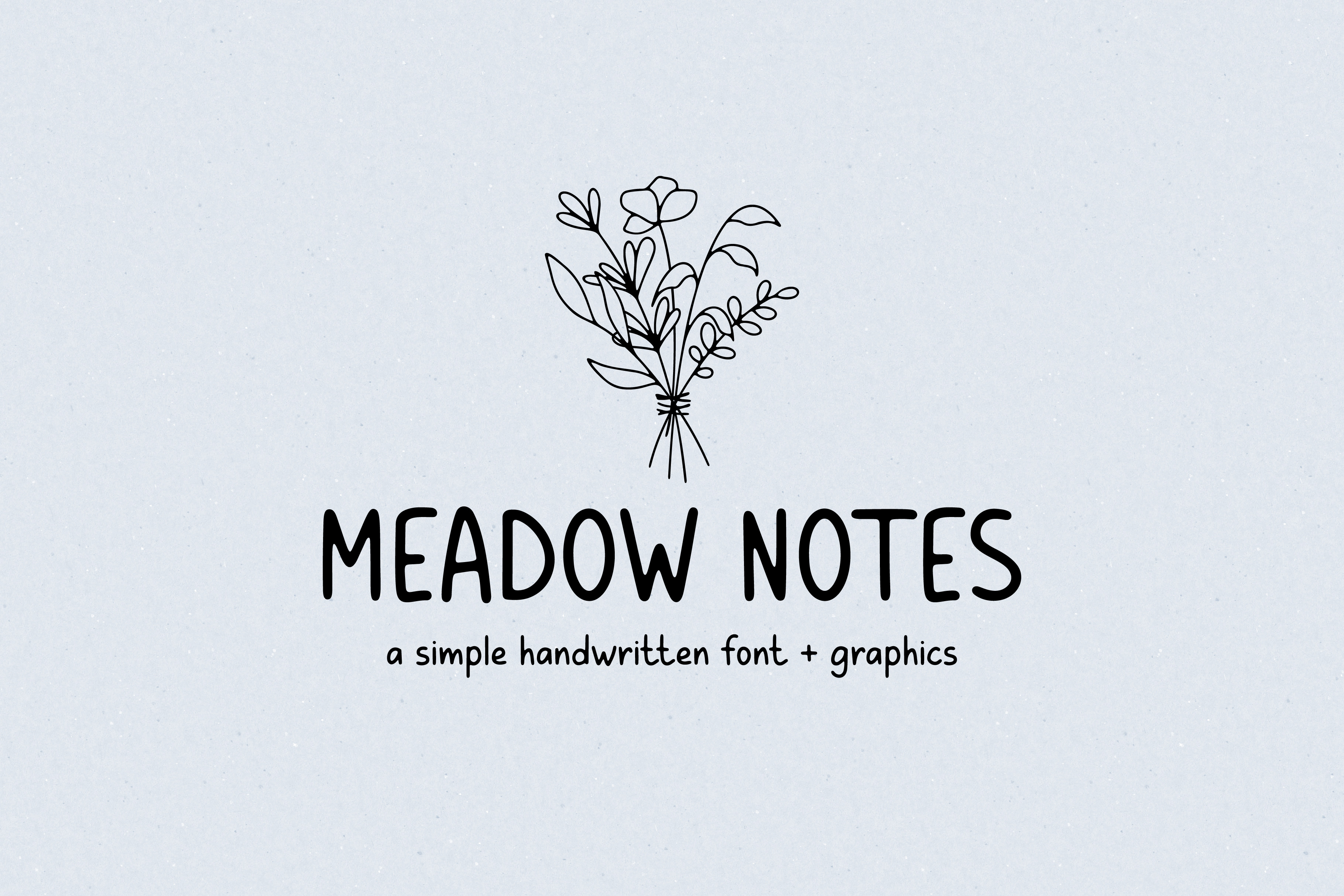
Meadow Notes - Handwritten Font
Meadow Notes - a simple handwritten typeface with line art floral elements. This font and graphics will be perfect for logos, branding, packaging, cards, posters, quotes and so much more!